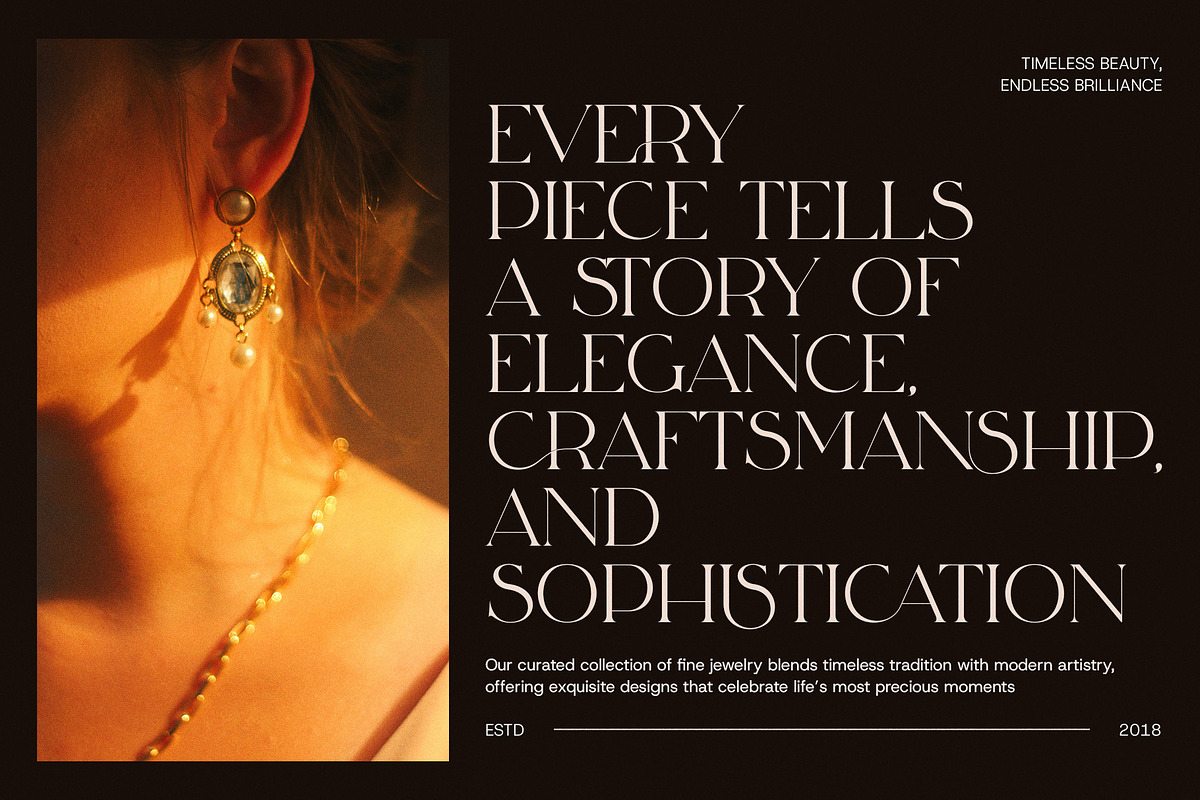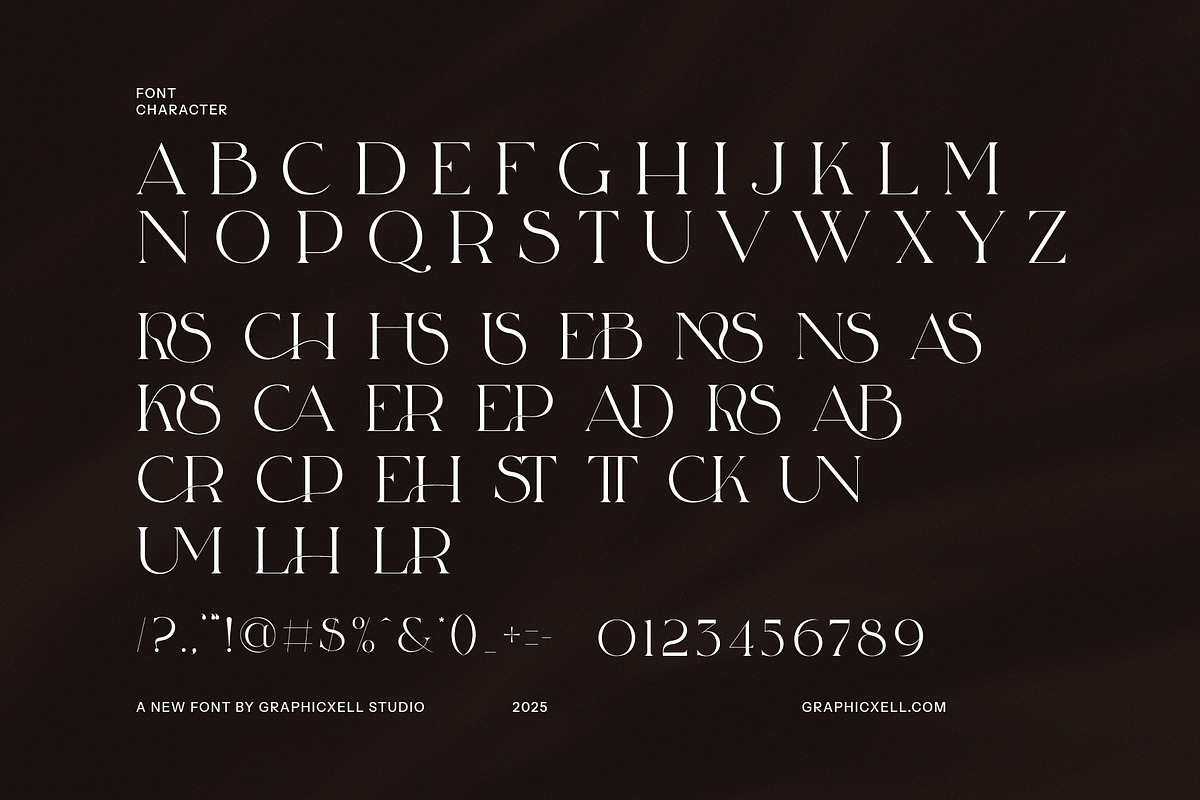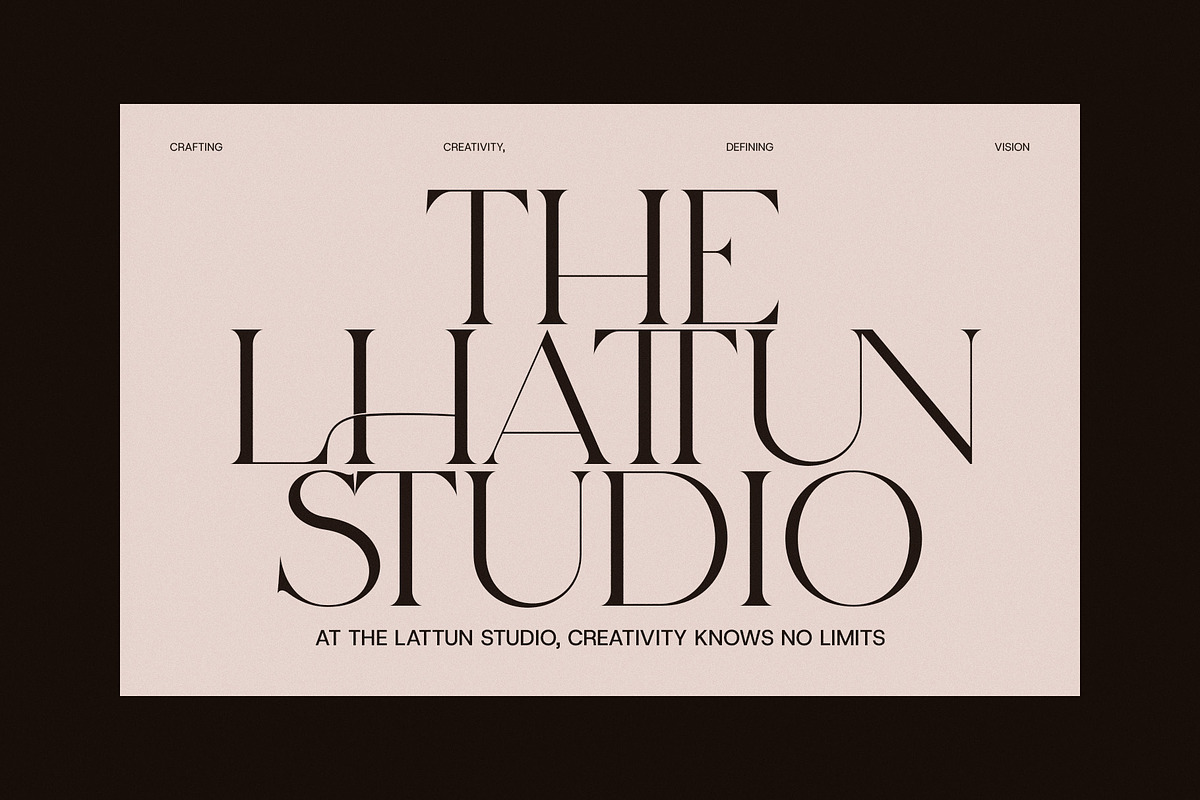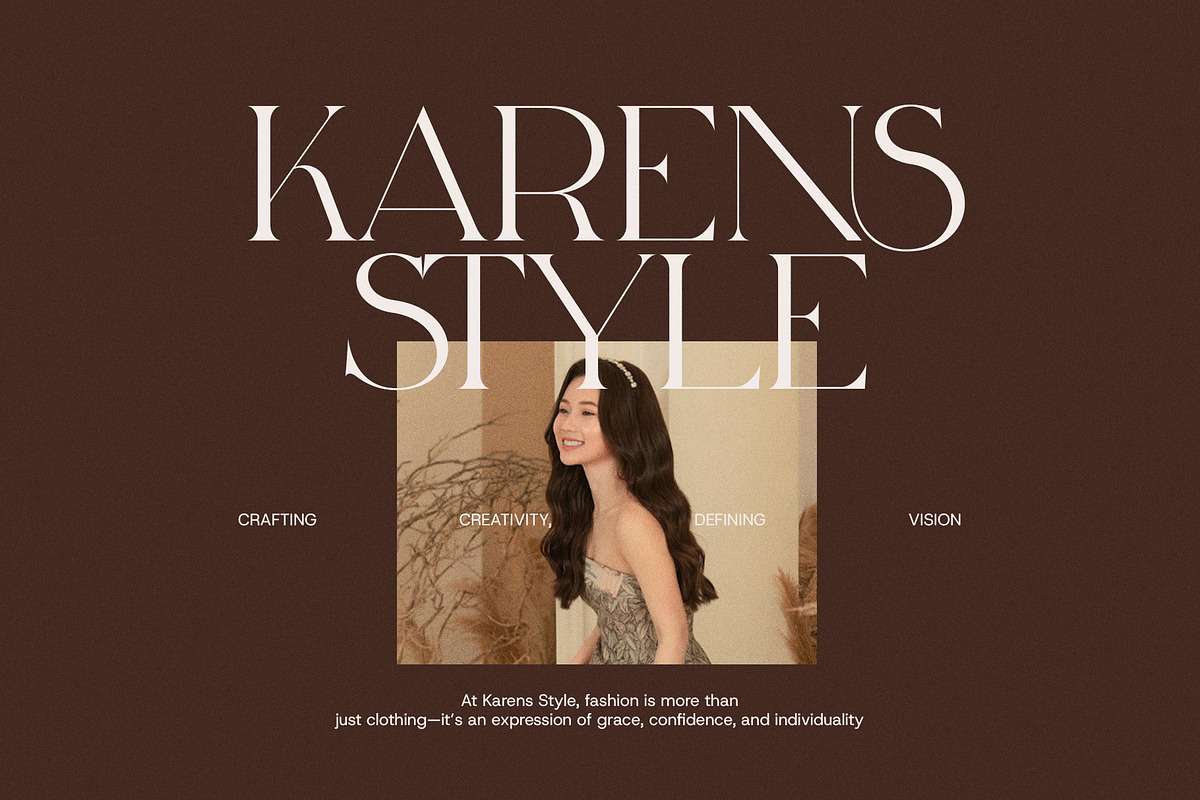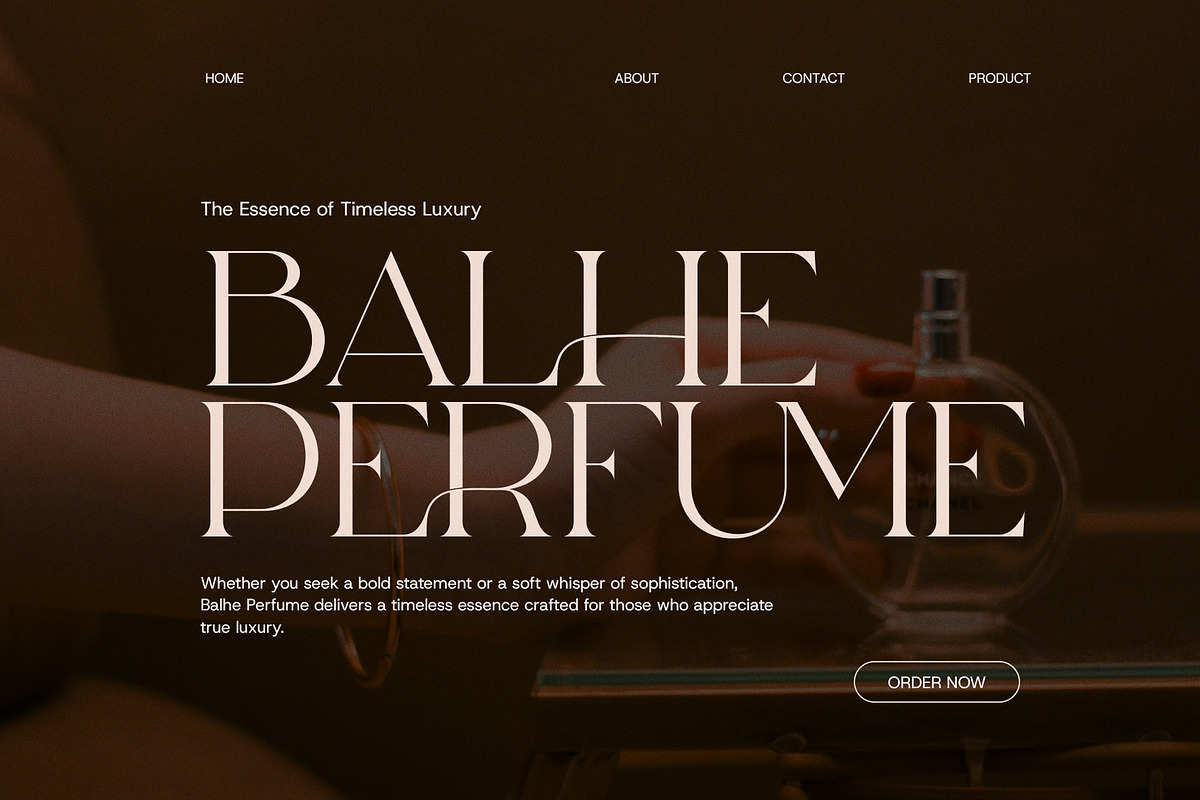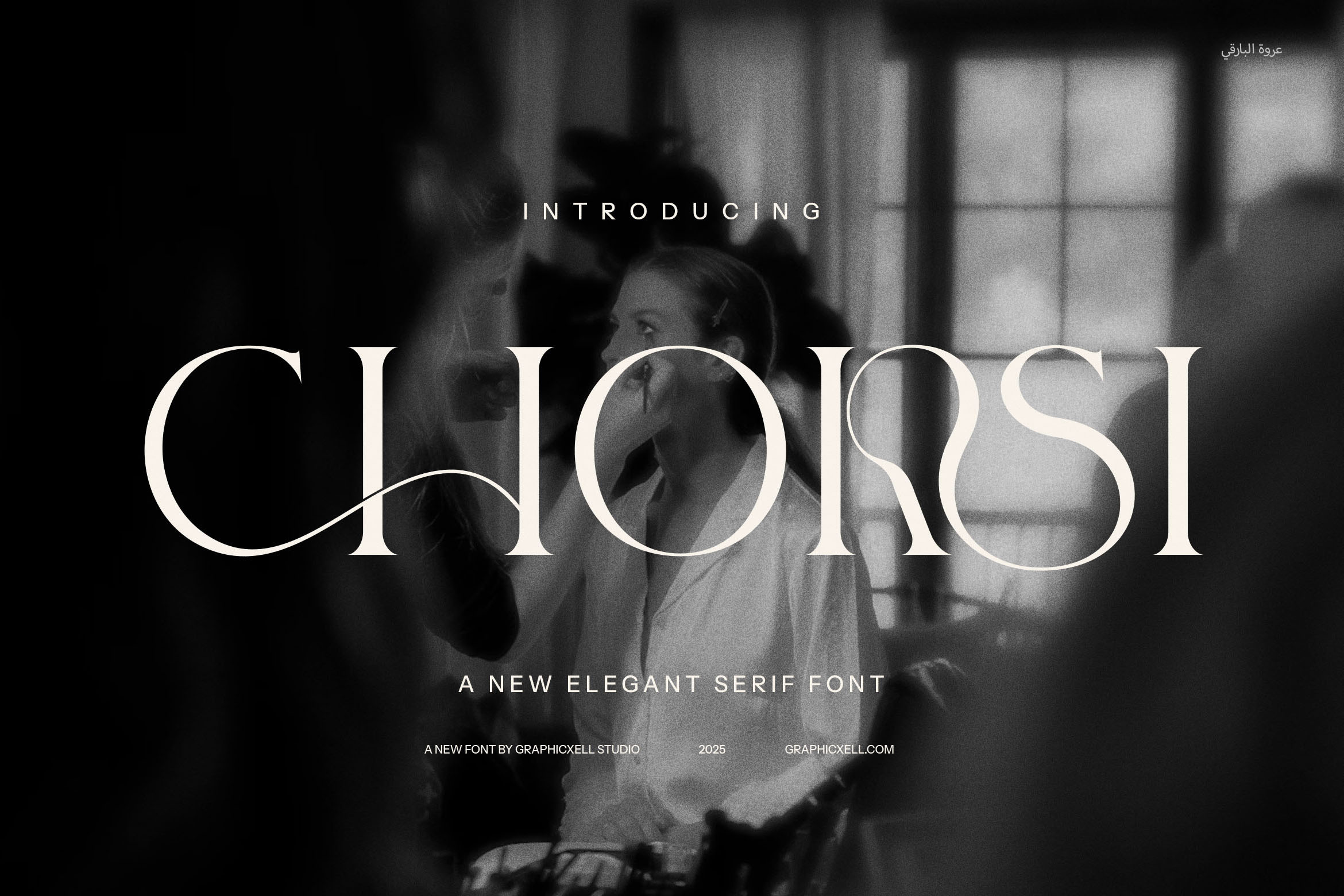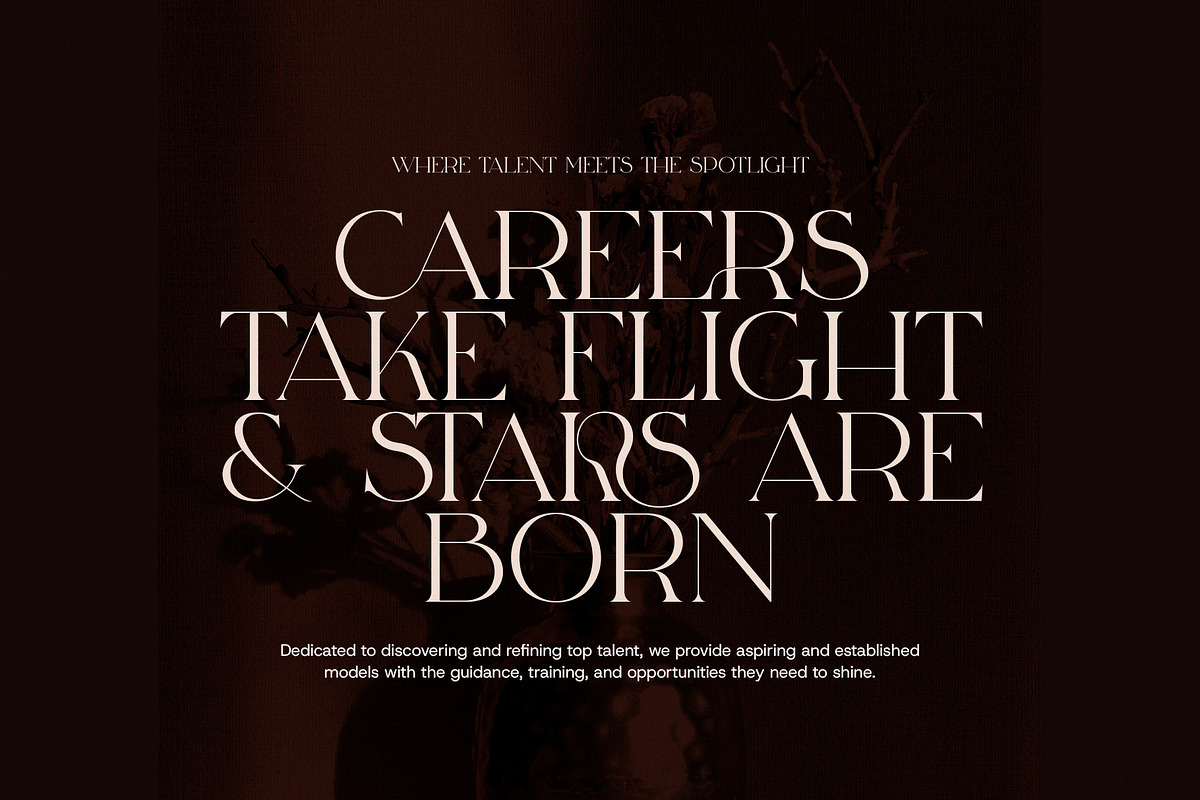
Chorsi Ligature Serif Font
Chorsi Modern Serif Font is a beautifully crafted typeface designed to elevate your projects with its timeless elegance and modern flair. Featuring unique ligatures and alternate forms, this font offers a refined, sophisticated aesthetic that seamlessly blends classic serif elements with a contemporary twist. Perfect for any design requiring a touch of luxury and class, Chorsi is ideal for branding, logo design, magazines, websites, advertisements, and more.
The distinctive ligatures and alternates make Chorsi not just a typeface but a versatile tool for creating striking, one-of-a-kind typography that stands out. Whether you're designing a chic boutique logo, crafting a memorable food brand identity, or developing an eye-catching magazine layout, Chorsi brings personality and charm to the table. Its well-balanced letterforms provide readability while maintaining an upscale, premium look.
Chorsi Modern Serif Font excels in both digital and print projects, making it an excellent choice for web design, product packaging, and editorial materials. Its elegance adds a luxurious feel to your visual content, making it an essential font for high-end brands, creative agencies, or anyone aiming to communicate sophistication and style. With its balanced mix of tradition and modernity, Chorsi will quickly become a go-to for those seeking a versatile, elegant font with personality.
Embrace the charm and refinement of Chorsi Modern Serif Font and let it elevate your designs to the next level.